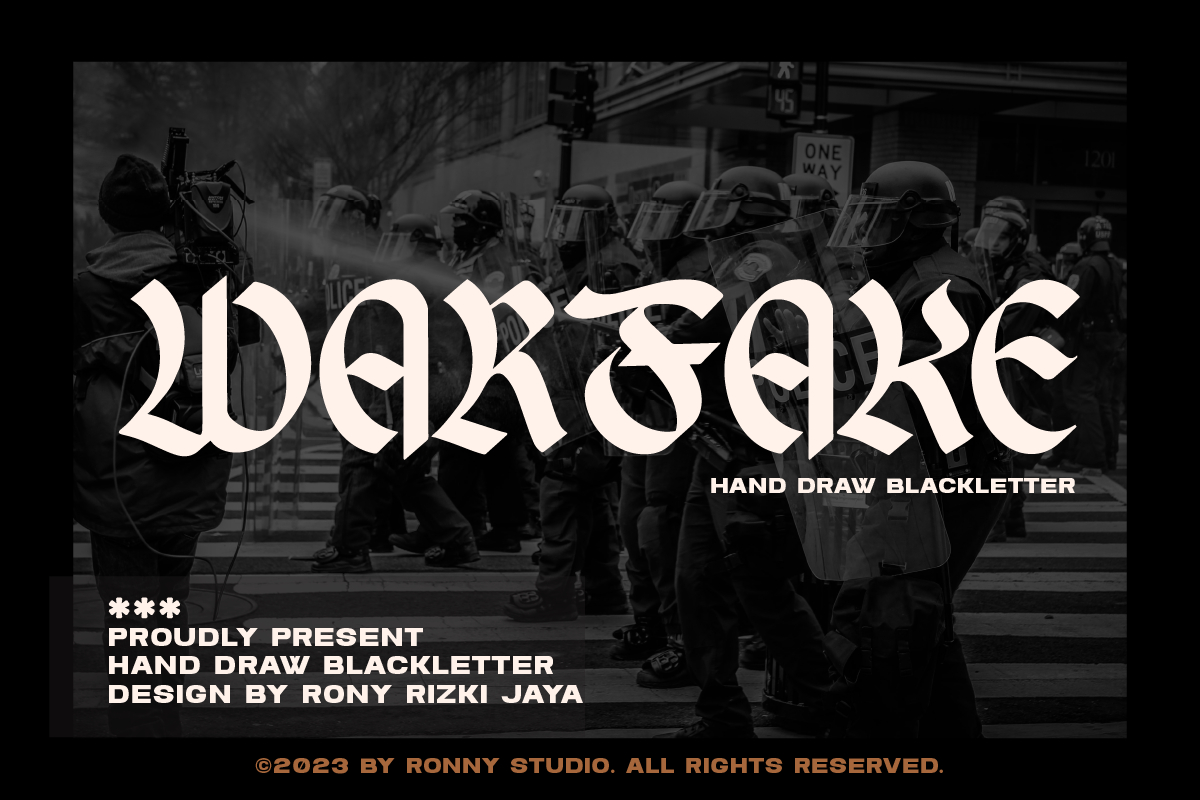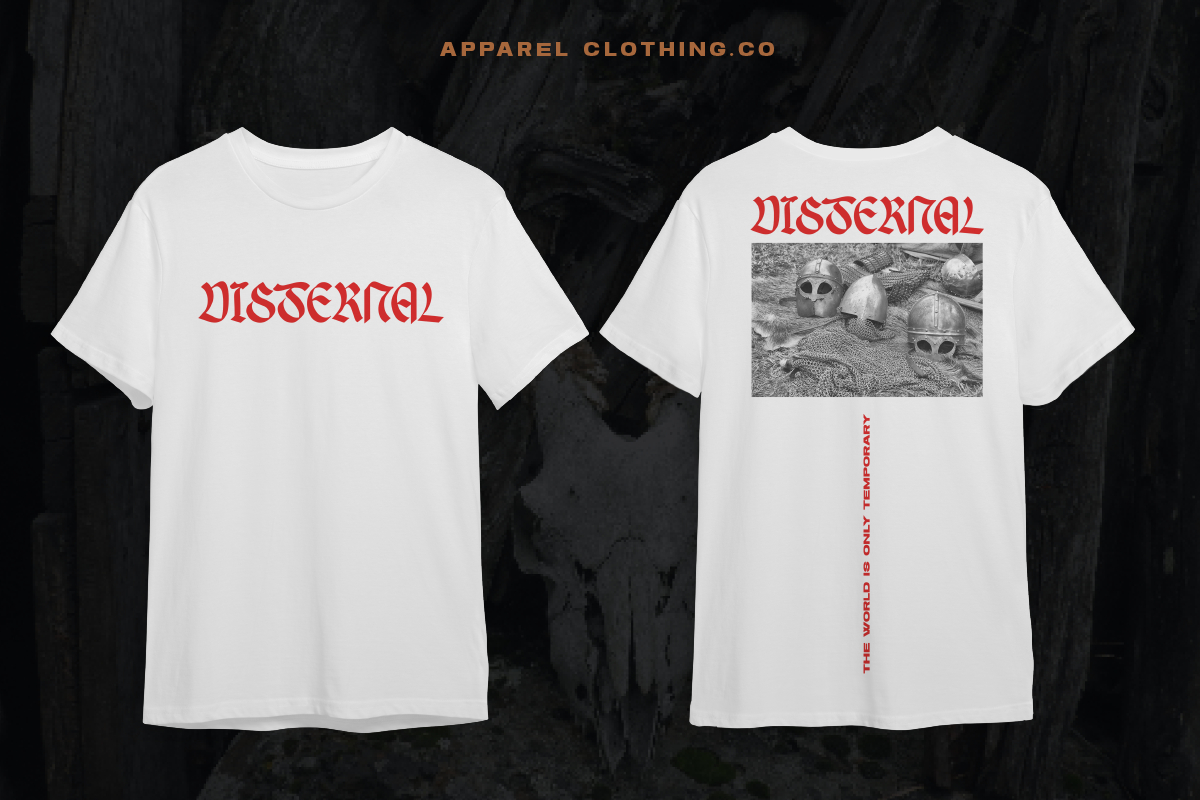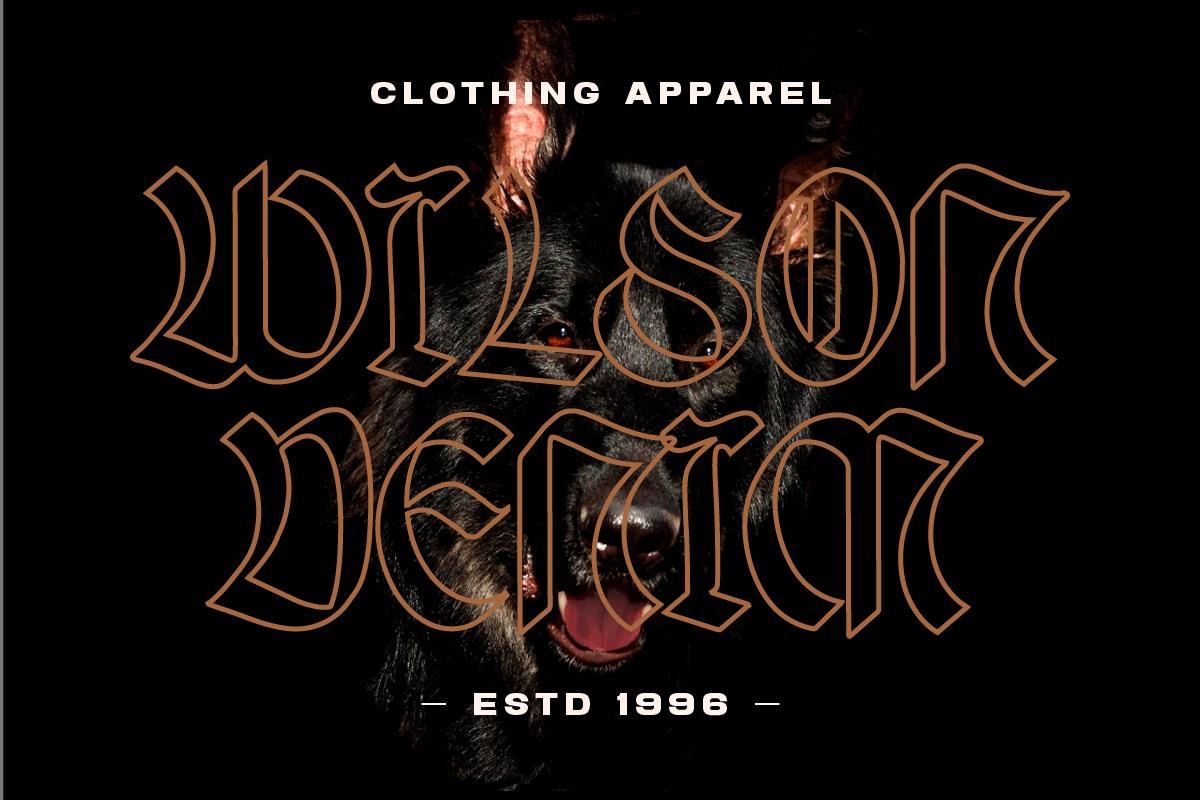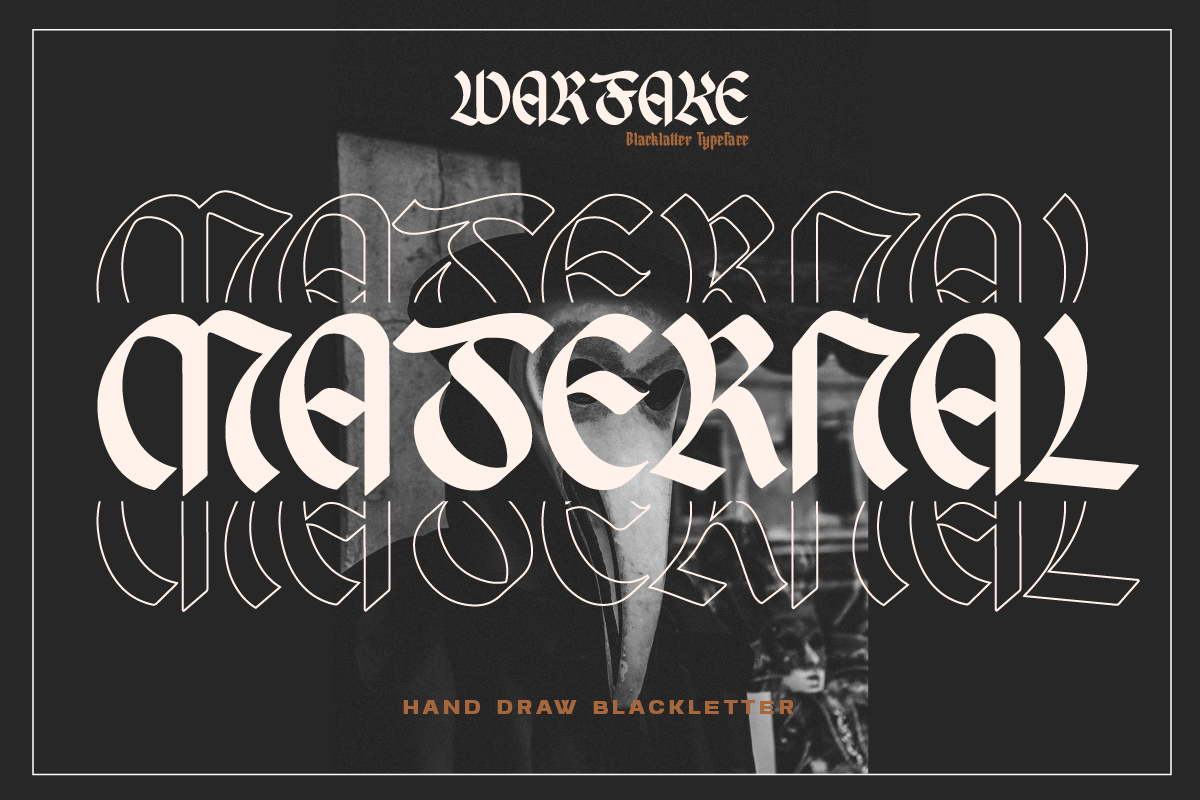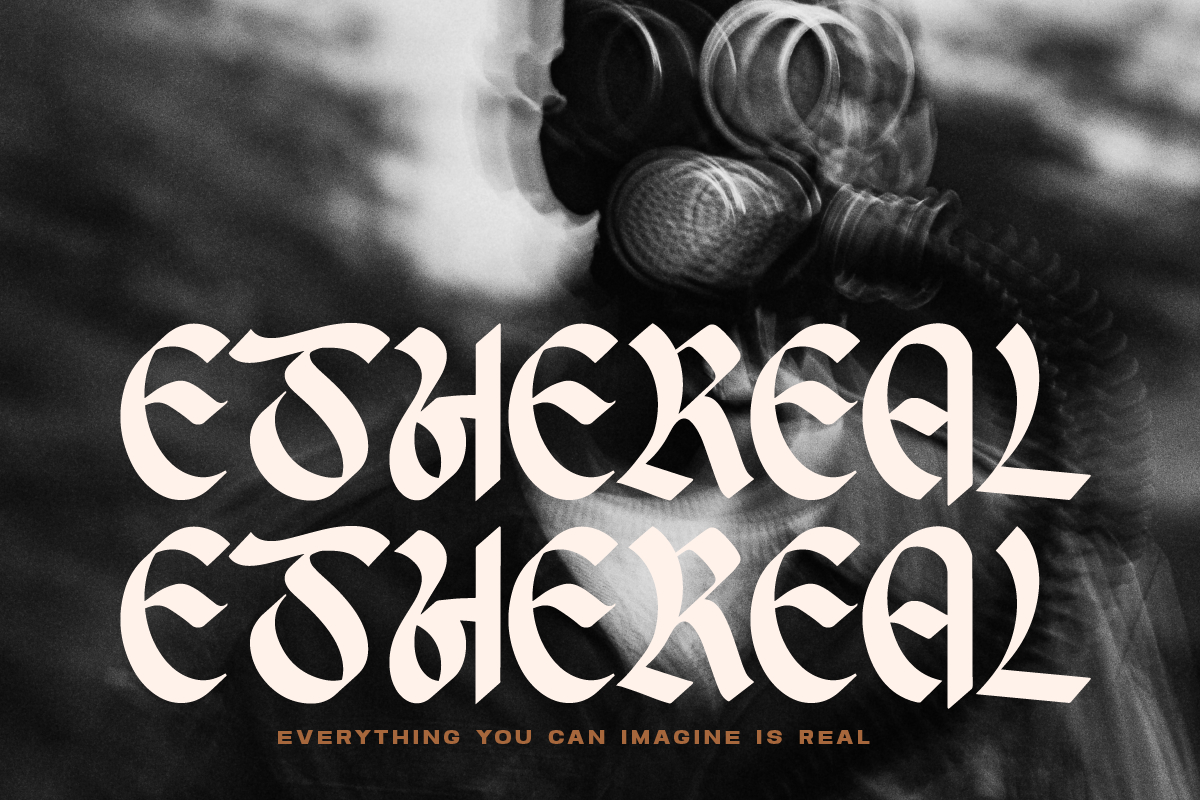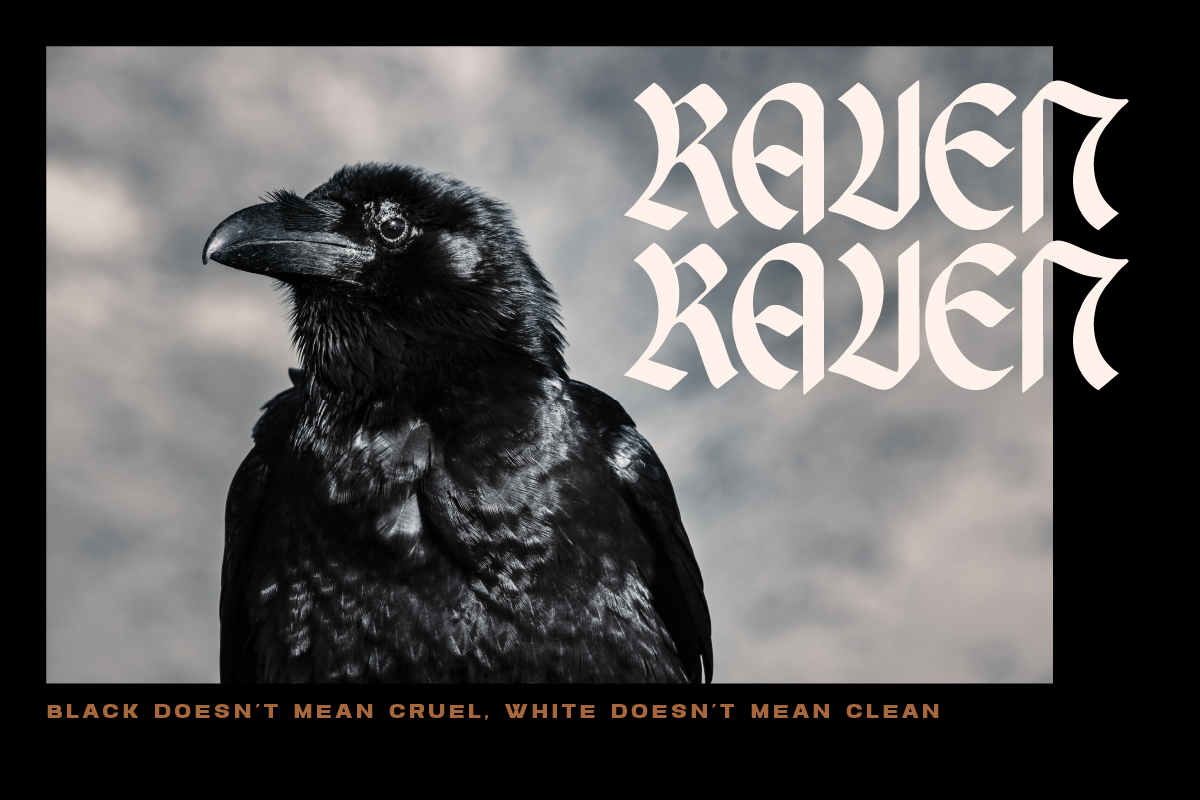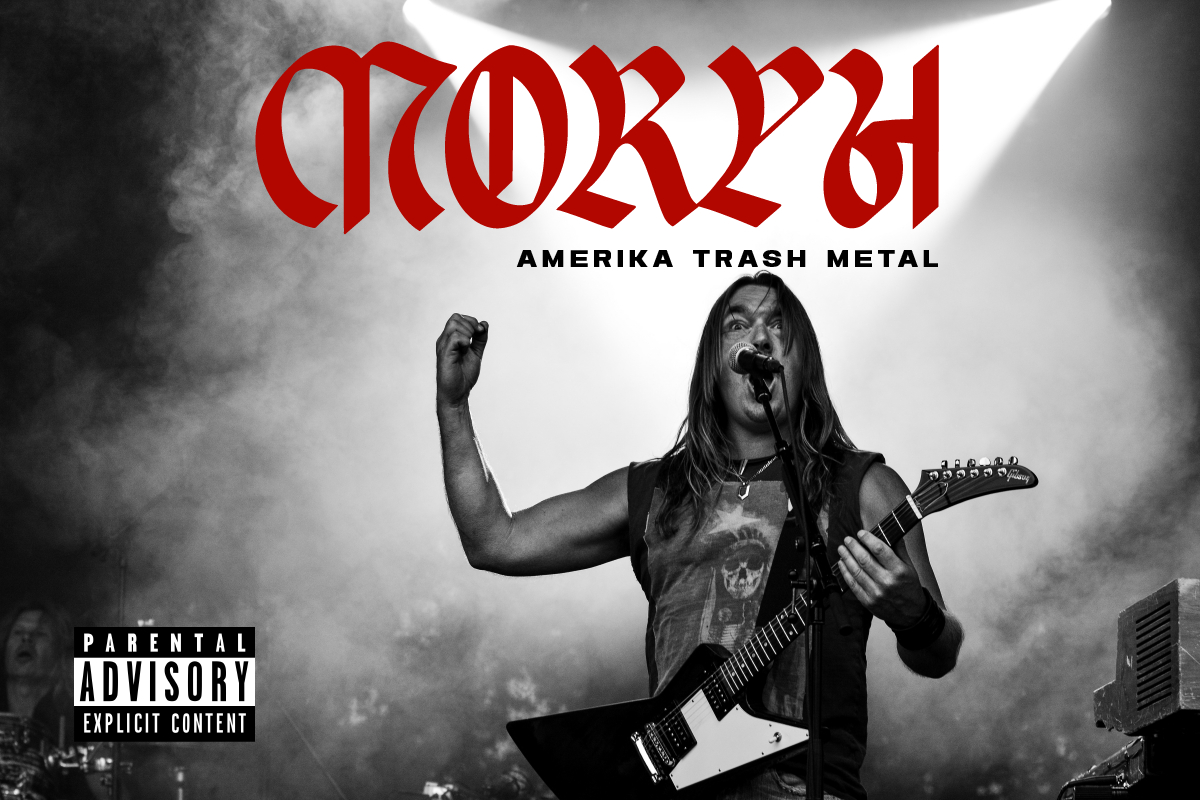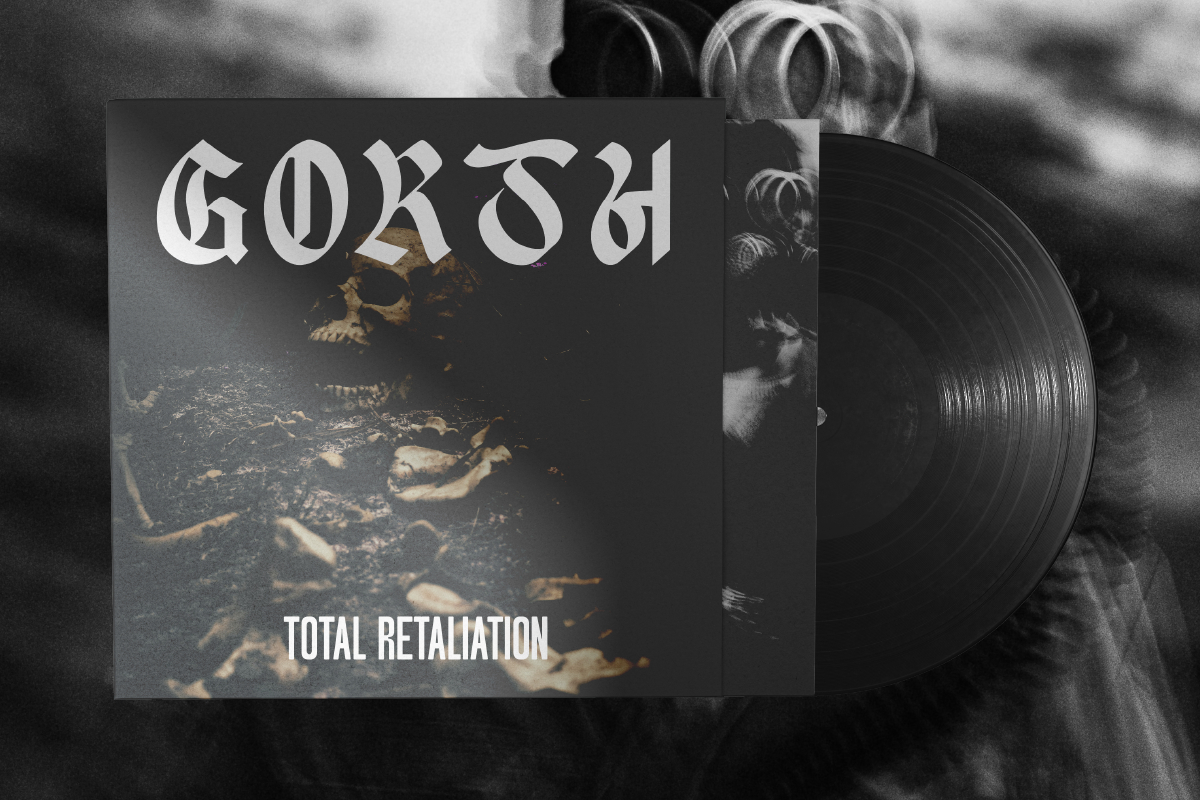
Warfake Font
About Warfake Font
Warfake is a high-contrast blackletter typeface, it adds a bold touch to your projects and will inspire you to create something unique and modern. This font is ideal for titles, flyers, greeting cards, product packaging, book covers, printed quotes, logotypes, clothing designs, branding and album covers.